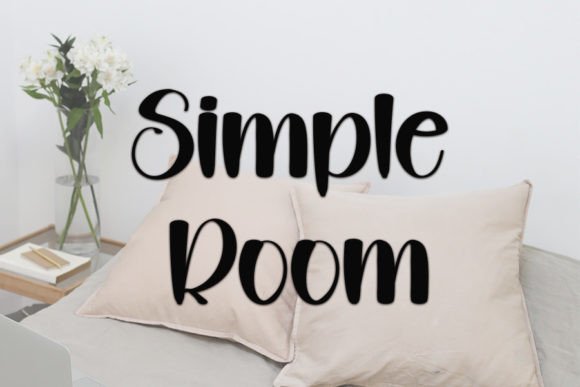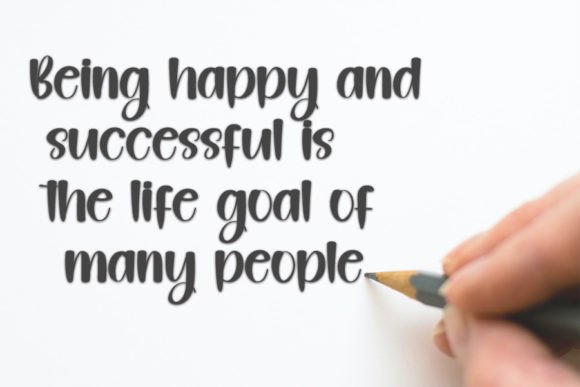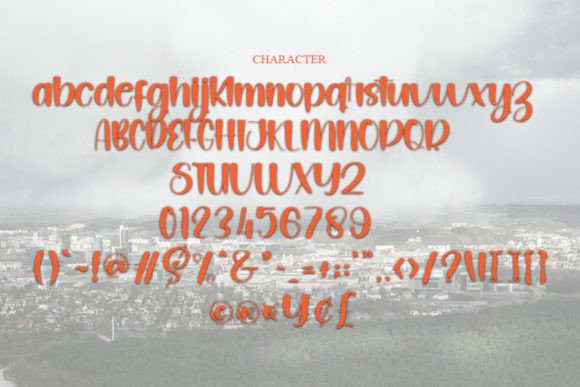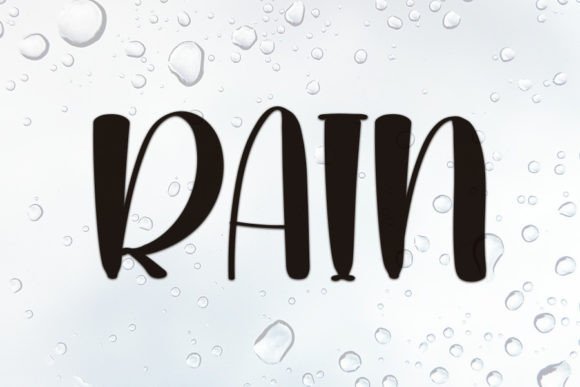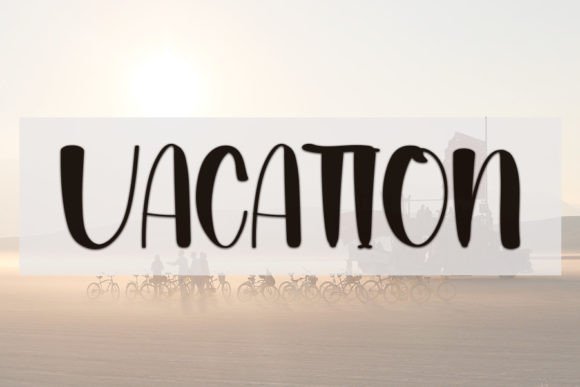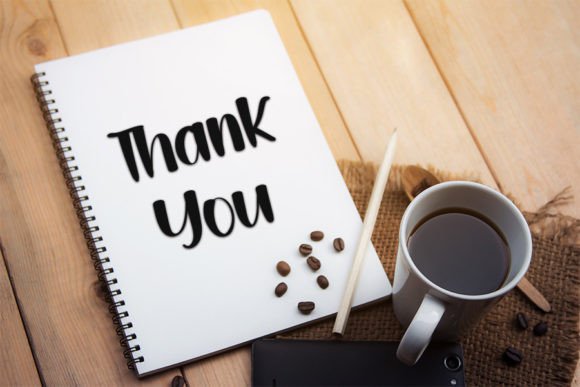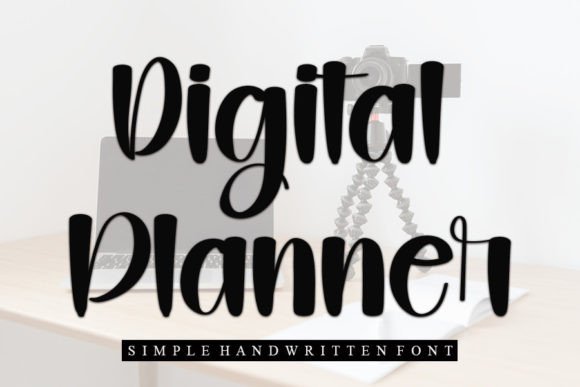
The Enchanting Digital Planner Font: A Designer’s Dream Come True
I’ll never forget the time I was working on a project for a client who wanted a custom greeting card with a romantic, whimsical feel. I had spent hours browsing through font libraries, but nothing seemed quite right. That was when I stumbled upon the Digital Planner font, and it instantly stole my heart. In this article, I’ll share my experience with this beautiful handwritten font, its features, and how to make the most of it in your designs.
I’ve had the pleasure of working with the Digital Planner font on several projects, and here’s what I think:
- ✨ It’s incredibly versatile and can be used for a wide range of projects, from greeting cards to headlines.
- ✅ The font has a unique, enchanting quality that adds a romantic feel to any design.
- ✅ It’s highly legible, even at smaller font sizes.
While I adore the Digital Planner font, there are a few quirks to be aware of:
- ⚠️ Some of the letters have slightly irregular spacing, which can make it tricky to use for body text.
- 🤔 The font doesn’t have an extensive range of weights, which might limit its use for certain projects.
One of the standout features of the Digital Planner font is its support for OpenType features and glyphs. These features allow you to add an extra layer of creativity to your designs. Here are a few examples:
- Ligatures: These are special character combinations that can be used to replace certain letter pairs.
- Stylistic alternates: These are alternative versions of certain characters that can be used to add visual interest to your text.
- Glyphs: These are special characters that can be used to add decorative elements to your text.
The Story Behind Digital Planner Font
The Digital Planner font was designed by a talented type designer who wanted to create a font that would capture the essence of handwritten writing. The designer drew inspiration from classic handwritten fonts, but with a modern twist. The result is a font that’s both elegant and approachable.
| What is the Digital Planner font best used for? | The Digital Planner font is best used for projects that require a romantic, whimsical feel, such as greeting cards, headlines, and social media graphics. |
| Is the Digital Planner font suitable for body text? | While the Digital Planner font is highly legible, it may not be the best choice for body text due to its slightly irregular spacing. |
| Does the Digital Planner font support OpenType features? | Yes, the Digital Planner font supports OpenType features, including ligatures, stylistic alternates, and glyphs. |